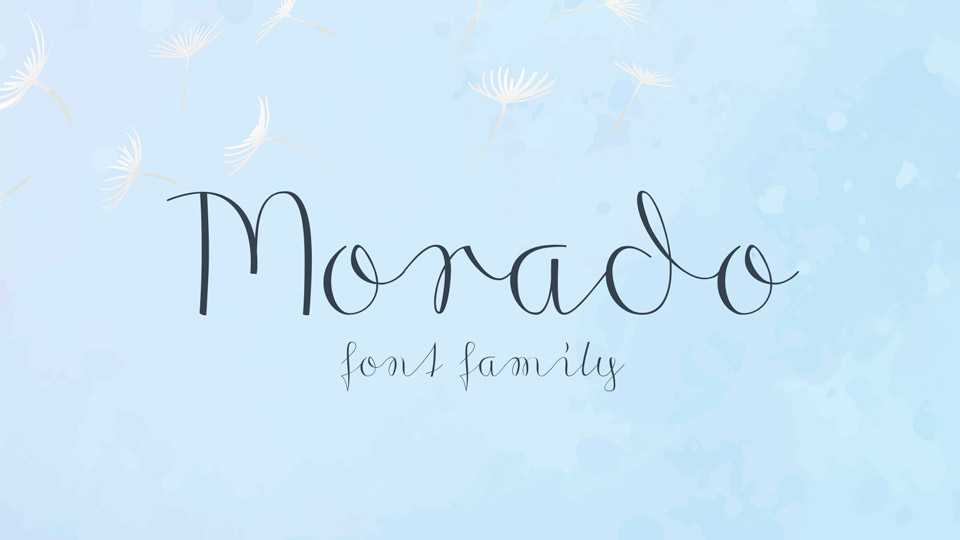
Download Morado typeface, a simple and natural handwritten font family in 4 styles Sharp, Felt, Nib and Marker styles. Morado font is suitable for notes, quotes, cards, letters and casual projects.